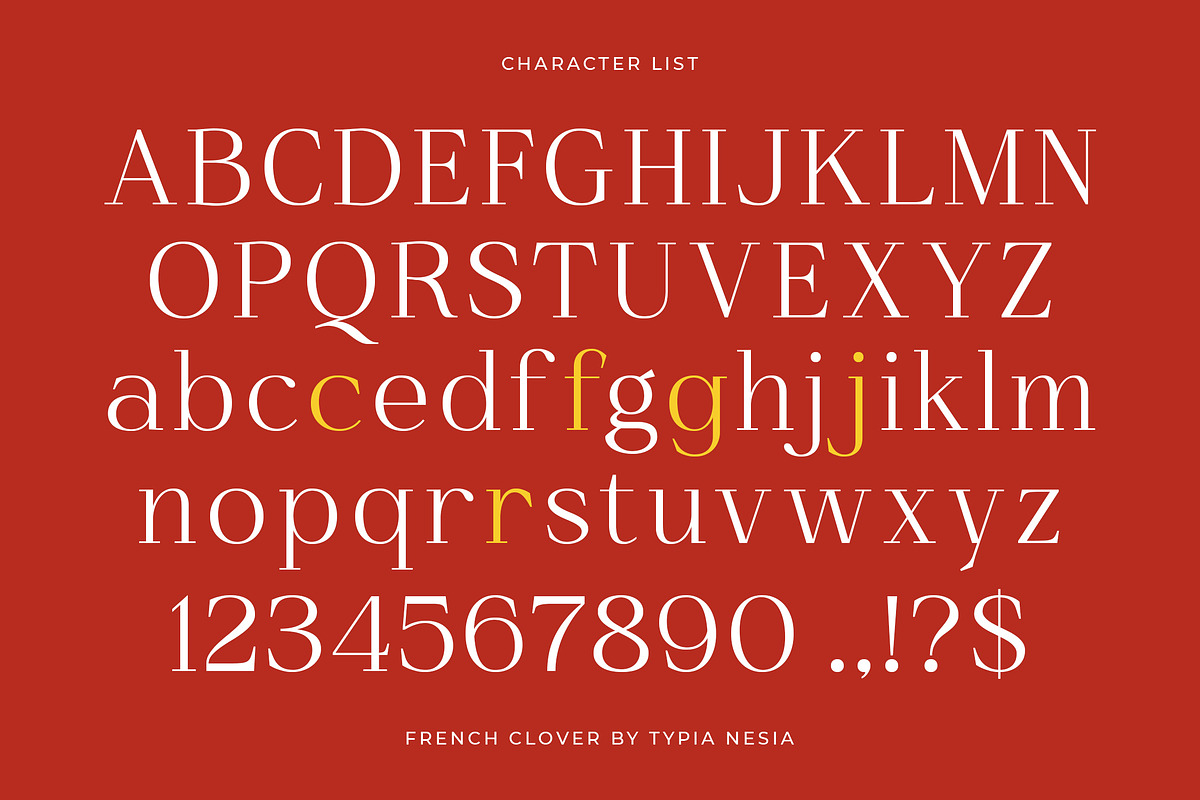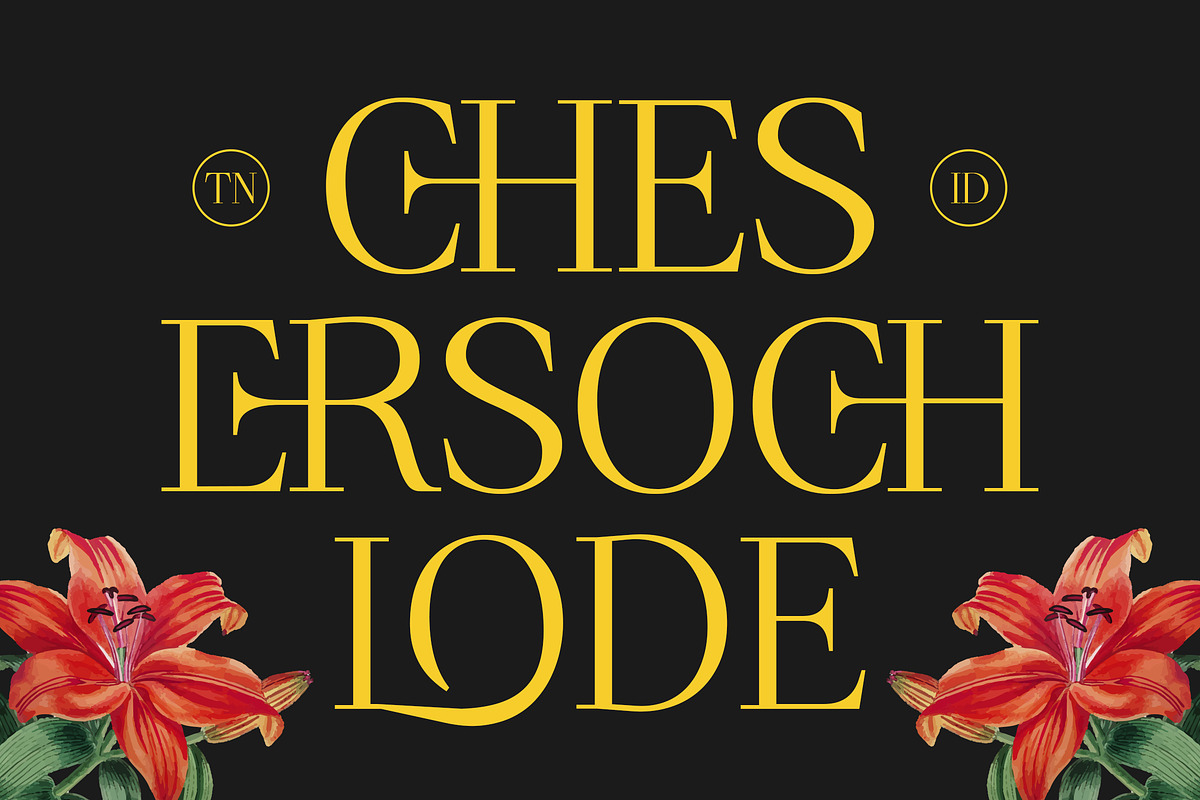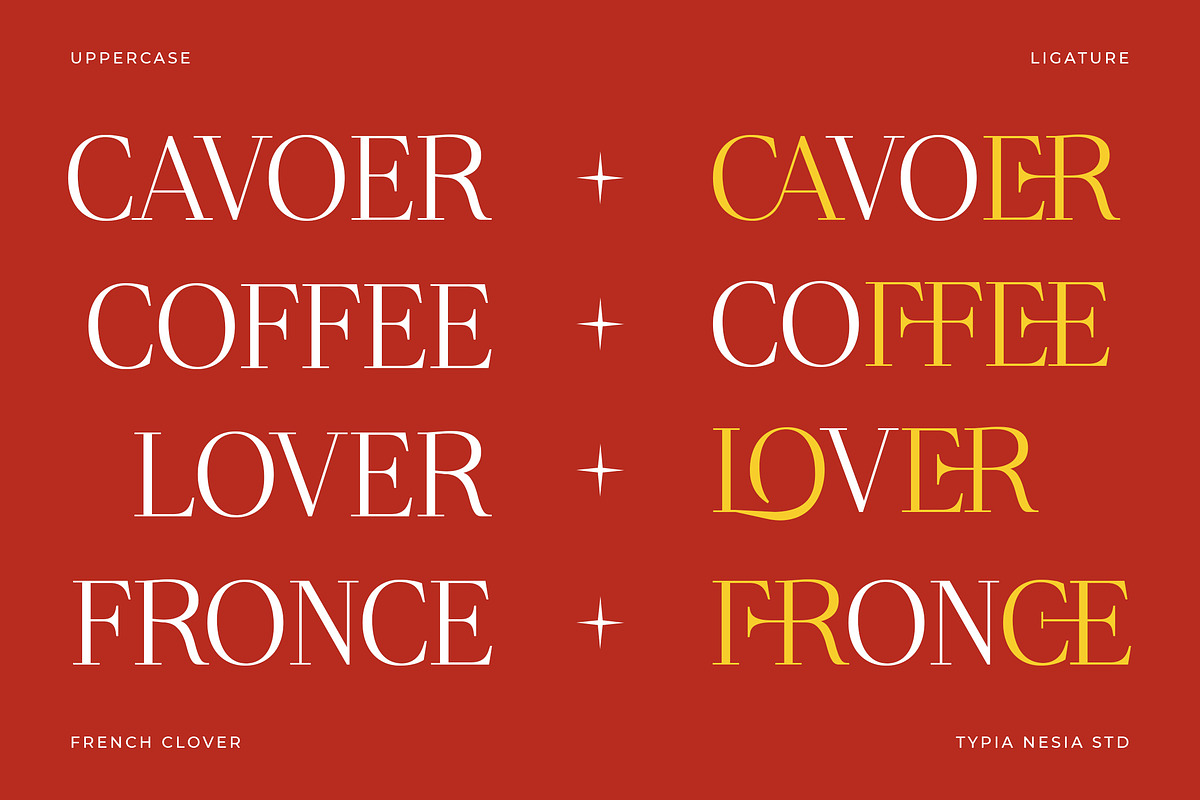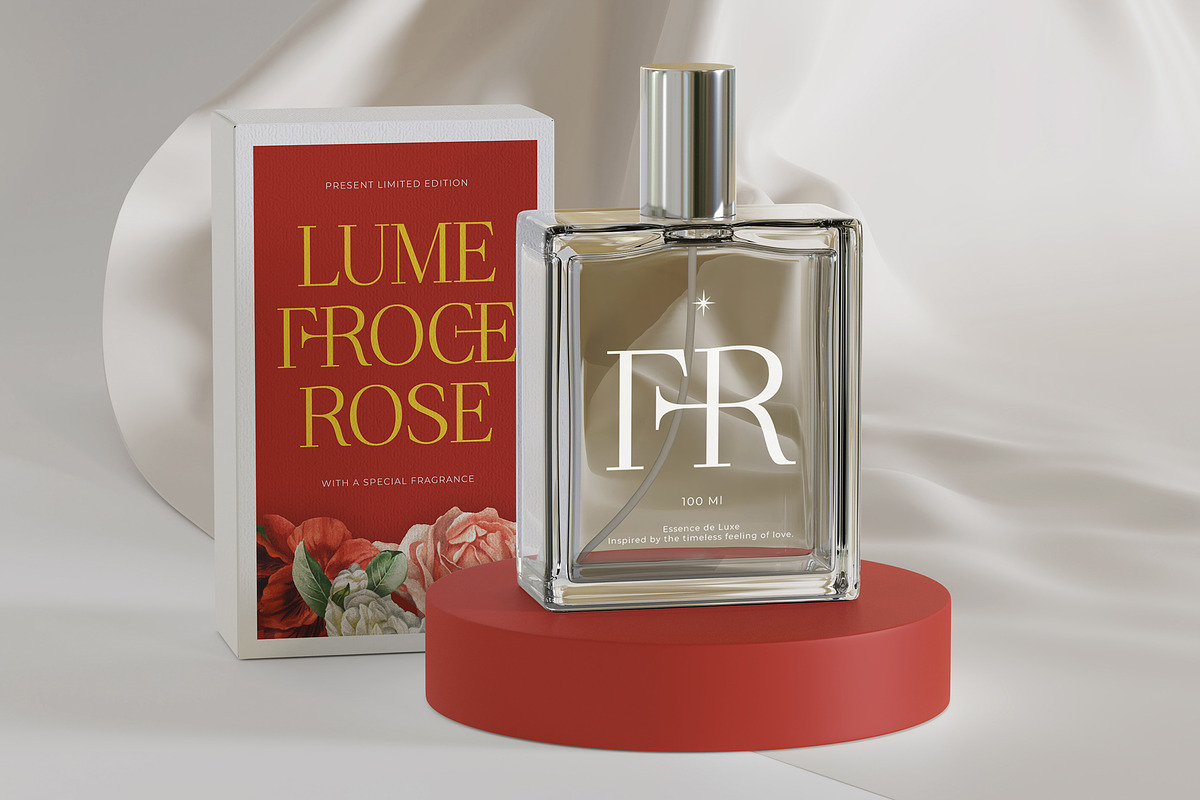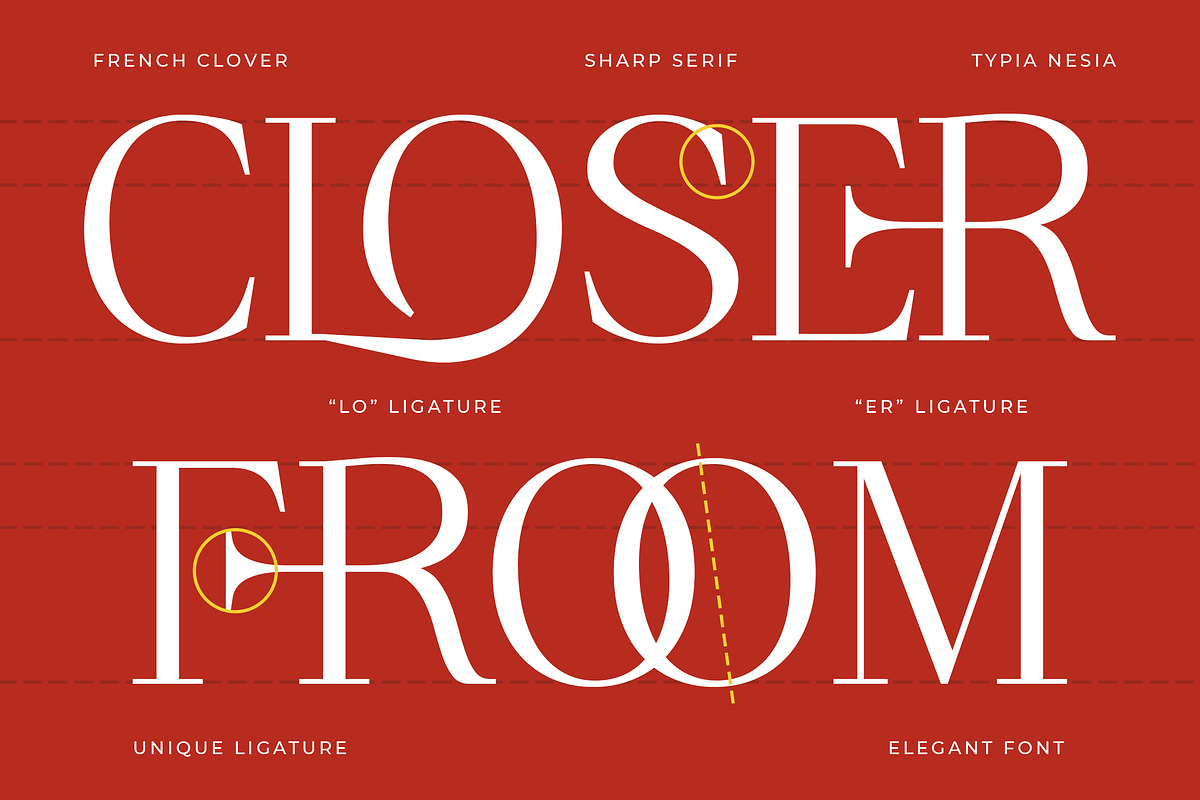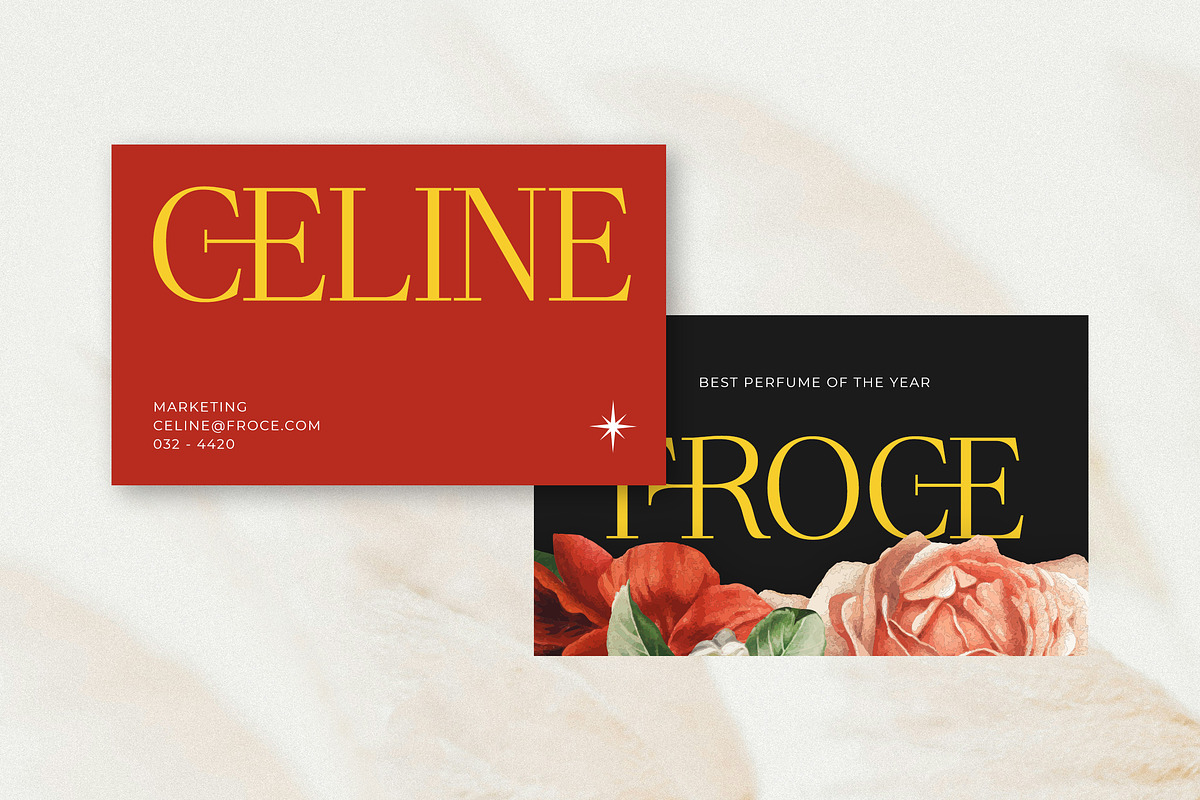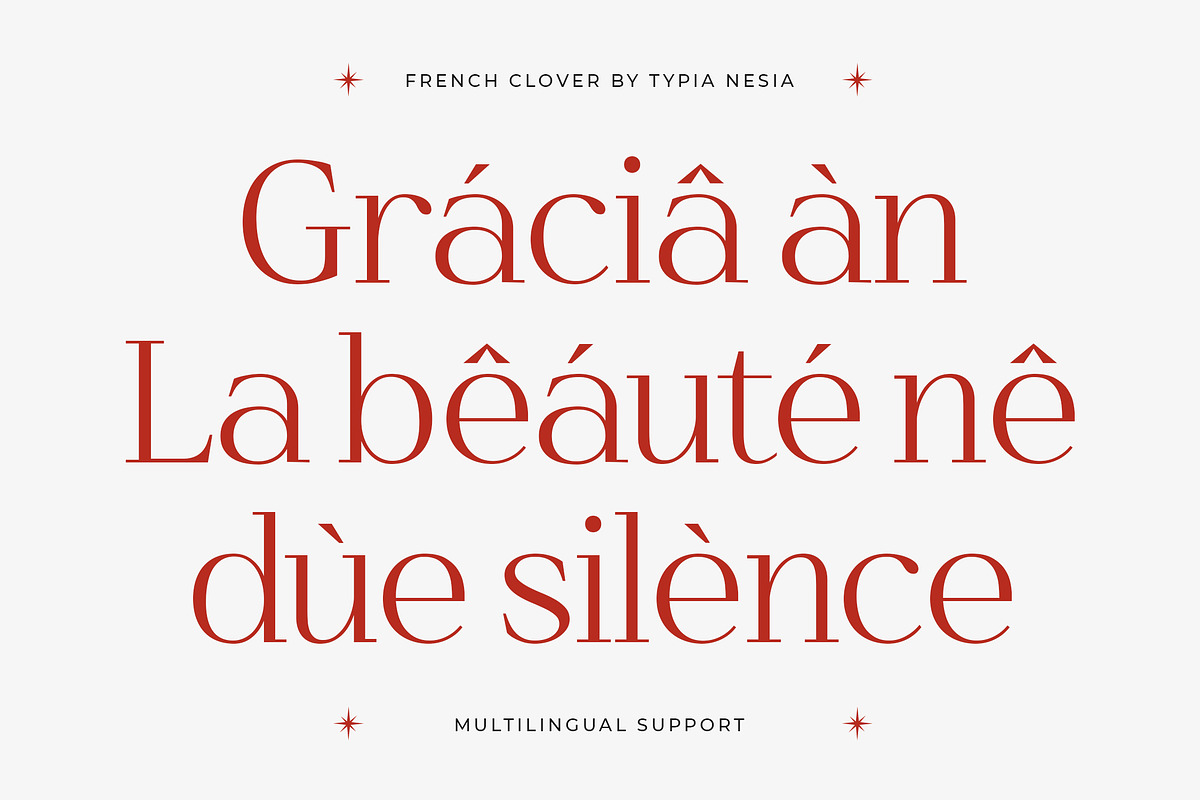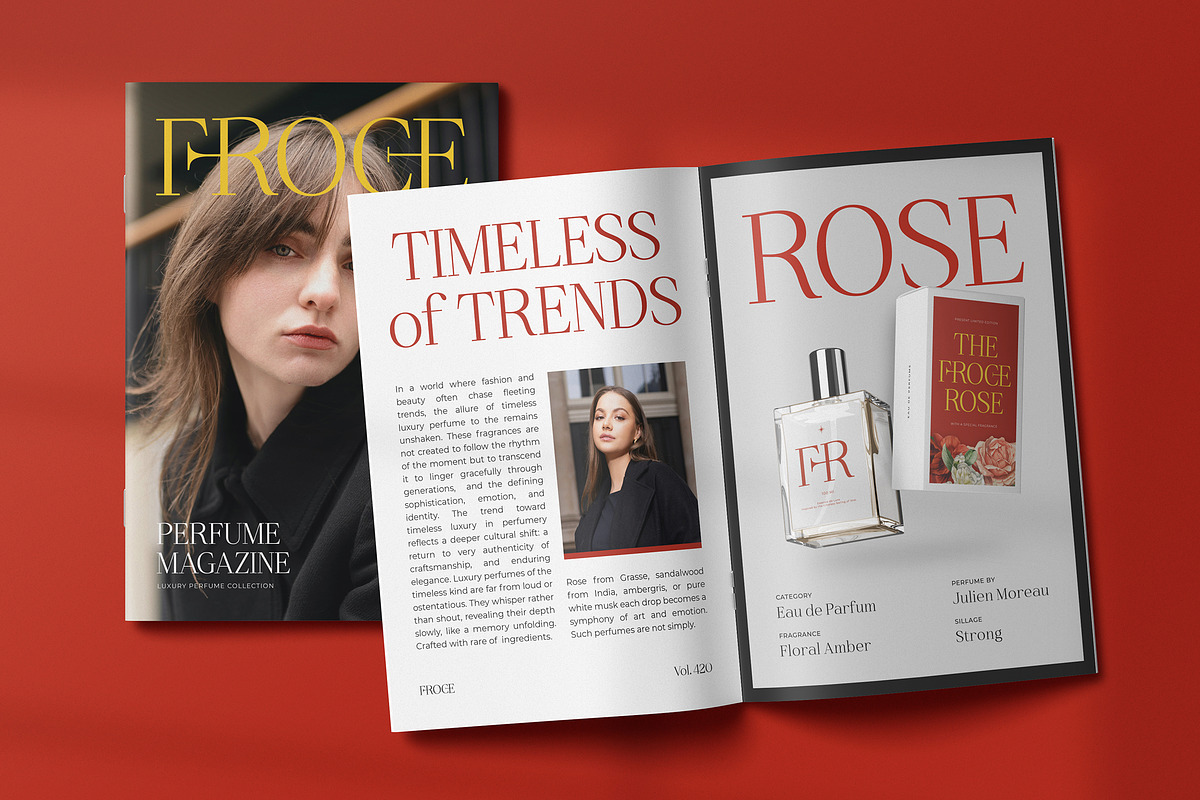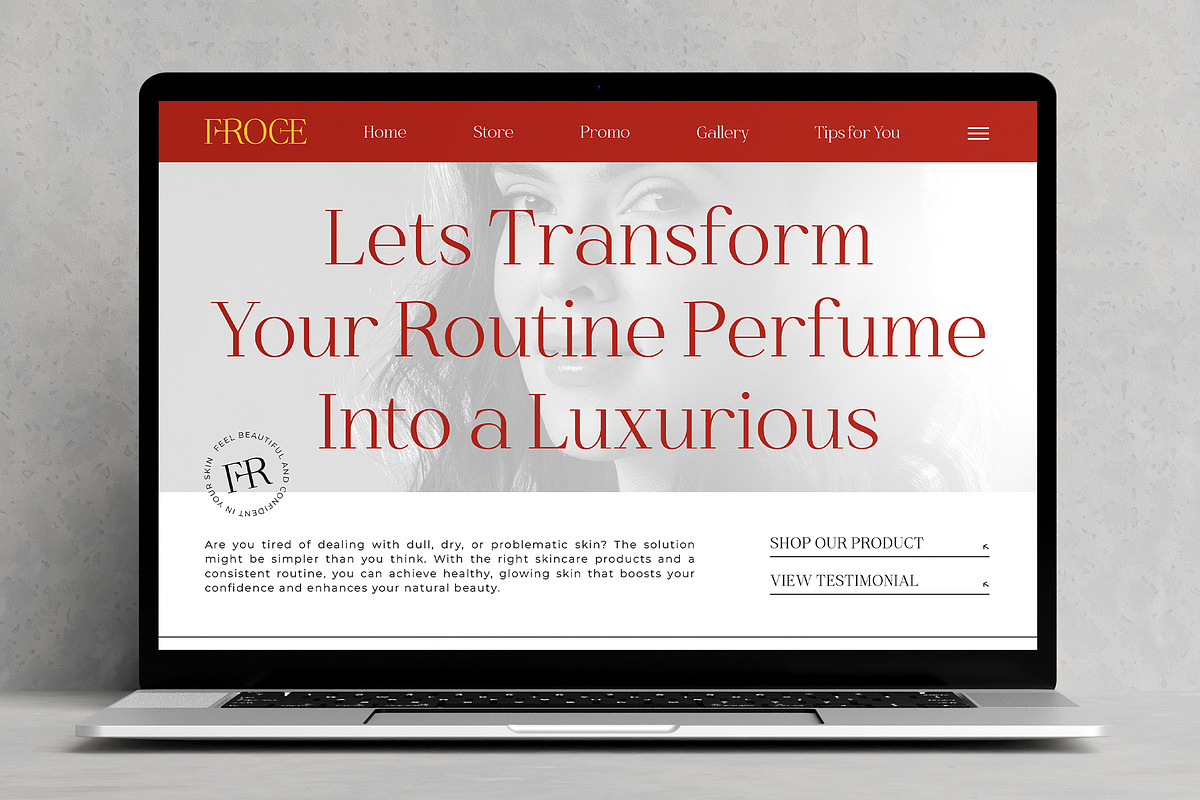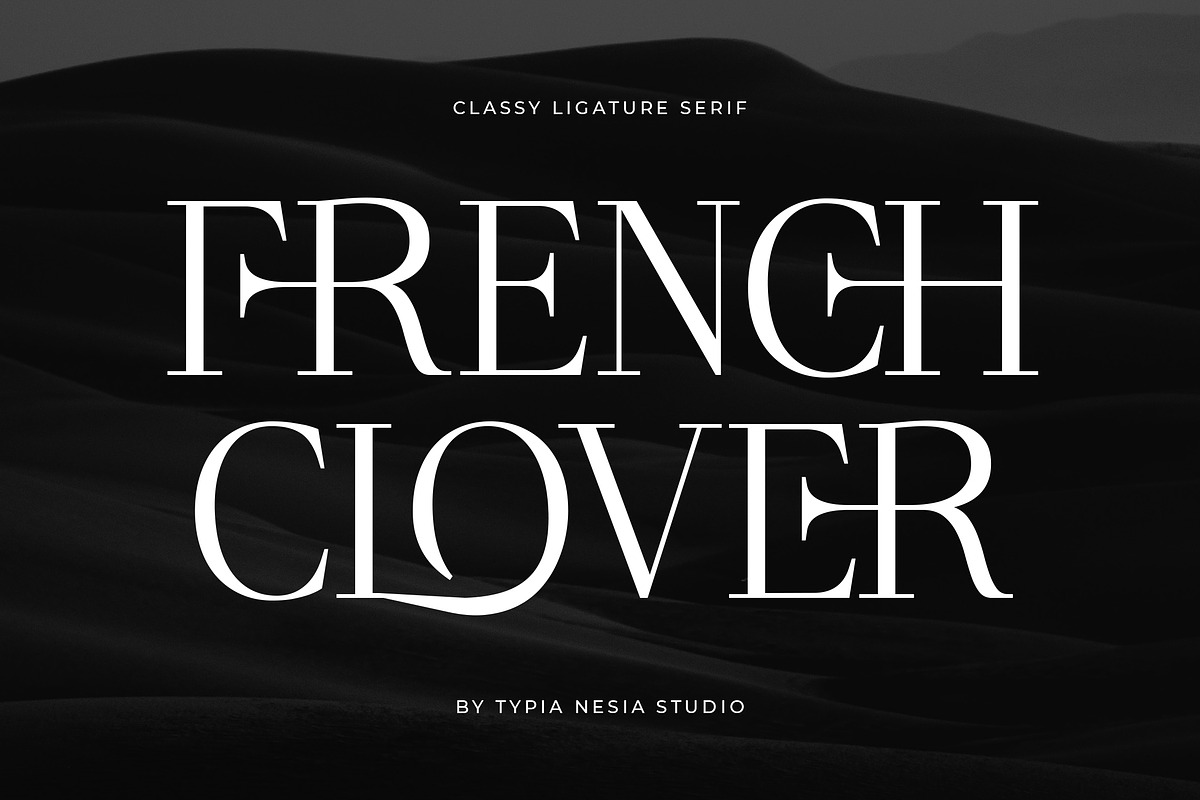
French Clover - Ligature Serif
French Clover - Beauty Elegant Ligature Serif - Modern Classy Stylish & Royal Display Font
French Clover is a Classy Beauty Luxury Serif font designed with an elegant balance of modern and royal aesthetic. Crafted for creators who value elegance and refinement, this serif font is ideal for fashion magazines, perfume branding, luxury skincare packaging, cosmetic labels, signature logo designs, boutique branding to elevated social media visuals and any project that requires modern style and luxury. Comes with refined strokes, stylish ligatures, and high-contrast letterforms create a timeless visual identity, making every layout feel premium and artfully designed.